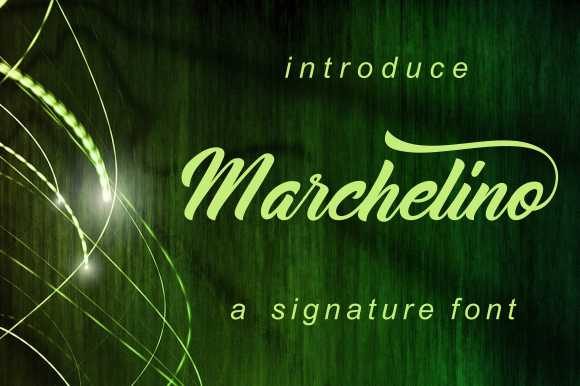
Marchelino Font
About Marchelino Font
The Marchelino is an elegant signature typeface with an authentic feel. It’s perfect for stationery, logos, branding, modern advertising designs, art quotes, book titles / covers, special events, special mugs, pillows, t-shirts, and much more!